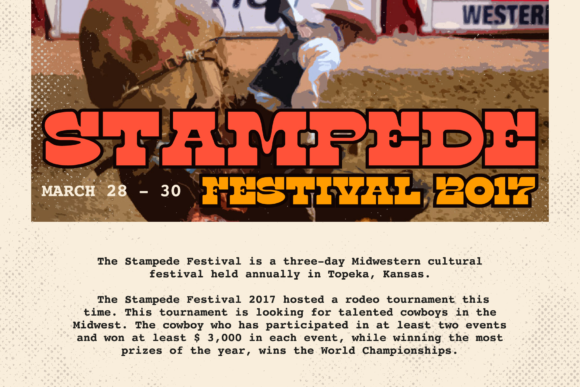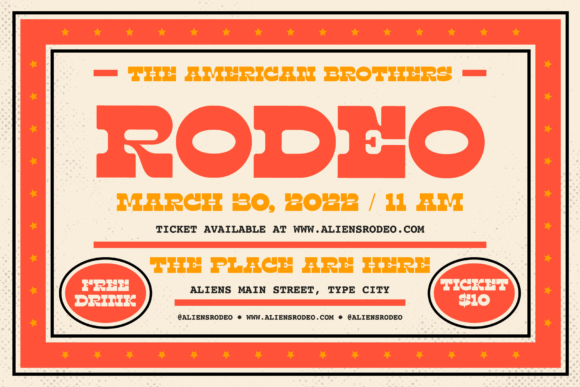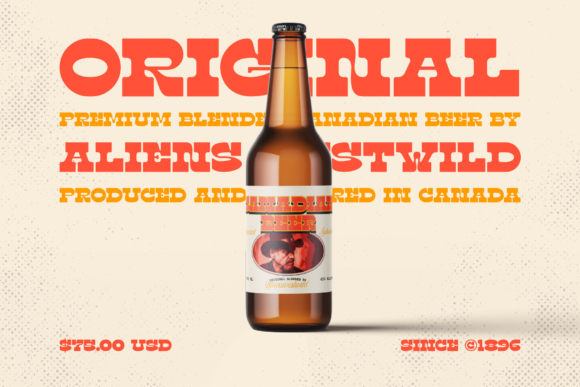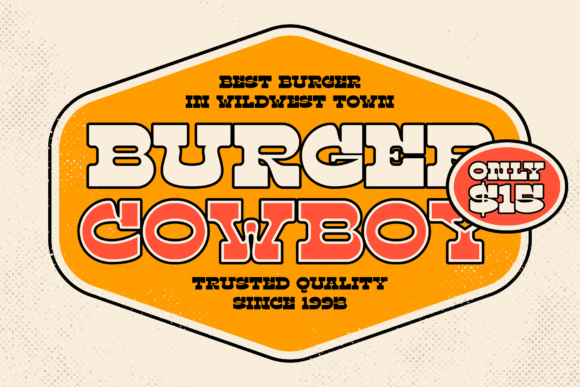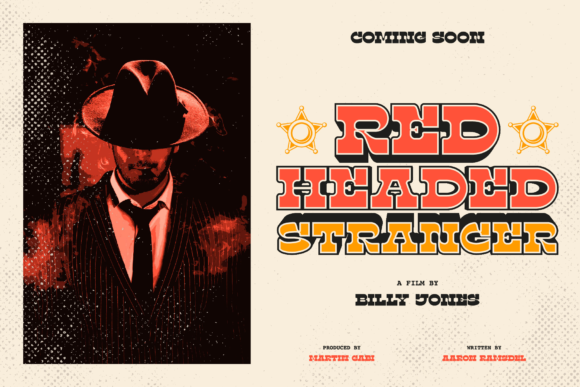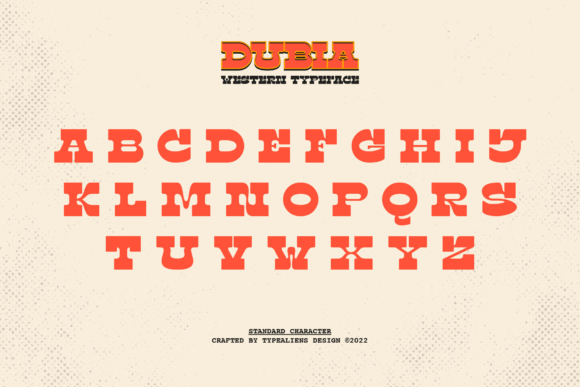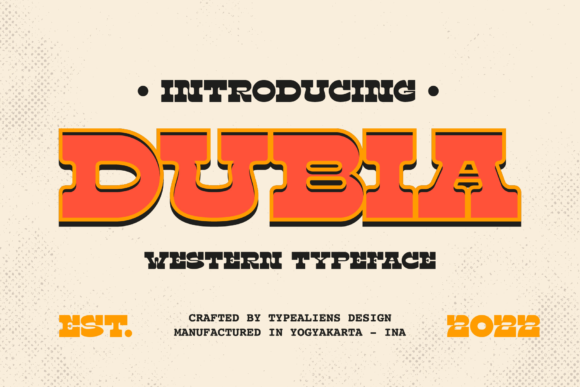
Dubia Font: A Bold and Rugged Typeface for Western-Inspired Designs
Are you looking for a font that embodies the spirit of the Wild West? Do you want to add a touch of ruggedness and toughness to your designs? Look no further than the Dubia Font, a western-style typeface that’s perfect for cowboy-inspired, rodeo-themed, and vintage designs.
A Font that Speaks to the Wild West
Dubia is a bold and serif font that’s reminiscent of the American West. Its strong and sturdy character is evoking of a cowboy taming a wild horse, and its rugged texture is perfect for designs that require a sense of adventure and fearlessness. Whether you’re designing a logo, a poster, or a label, Dubia Font is sure to add a touch of authenticity to your western-inspired designs.
Dubia Font is characterized by its bold and sturdy strokes, which give it a strong and tough personality. The font’s serif details add a touch of elegance and sophistication, while its overall design remains rough and rugged. The font’s letterforms are carefully crafted to resemble the classic typography of the Wild West era, making it perfect for designs that require a vintage or retro feel.
Dubia Font is a versatile typeface that’s perfect for designers and crafters who want to add a touch of western flair to their designs. Whether you’re creating:
- Logos and branding materials for cowboy-themed businesses
- Posters and flyers for rodeo events or western-themed parties
- Labels and packaging for craft products with a vintage or rustic feel
- Signs and banners for country-themed events or businesses
Dubia Font is the perfect choice to add a bold and rugged touch to your designs.
Why Choose Dubia Font?
There are many fonts available that claim to have a western or vintage feel, but Dubia Font stands out from the rest. Here are just a few reasons why:
- Unique design: Dubia Font has a distinctive design that’s unlike any other font on the market. Its bold and rugged character is sure to grab attention and add a touch of authenticity to your designs.
- High-quality craftsmanship: The font is carefully crafted to ensure that every letterform is precise and elegant, making it perfect for both digital and print designs.
- Versatility: Dubia Font can be used for a wide range of design projects, from logos and branding materials to posters and packaging.
Tips for Using Dubia Font
Here are a few tips for getting the most out of Dubia Font:
- Use it boldly: Dubia Font is designed to be bold and attention-grabbing, so don’t be afraid to use it in large sizes or in combination with other bold design elements.
- Pair it with contrasting fonts: Dubia Font pairs well with clean and simple fonts, such as sans-serif fonts or script fonts. Experiment with different font combinations to find the perfect look for your design.
- Experiment with colors: Dubia Font looks great in a range of colors, from earthy tones like brown and beige to bold colors like red and blue. Experiment with different colors to find the perfect look for your design.
Dubia Font is a bold and rugged typeface that’s perfect for western-inspired designs. Its unique design, high-quality craftsmanship, and versatility make it a great choice for designers and crafters who want to add a touch of authenticity to their designs. Whether you’re creating logos, posters, labels, or signs, Dubia Font is sure to add a bold and rugged touch to your designs.